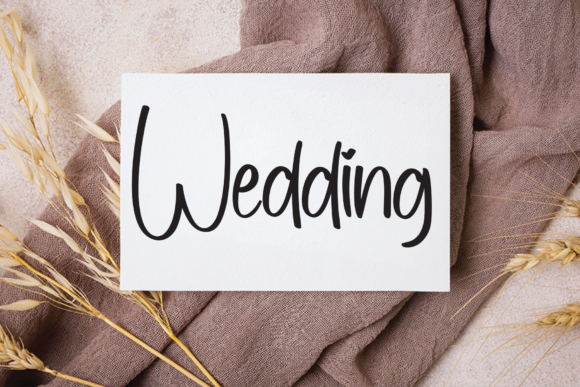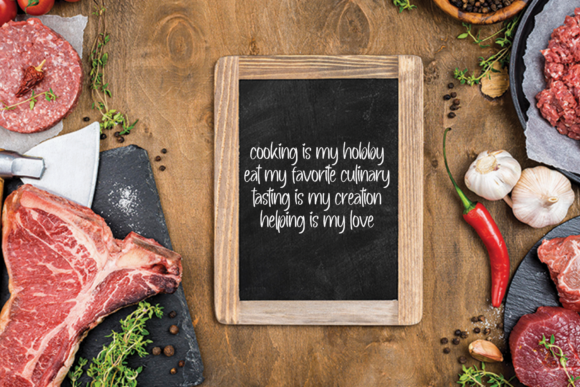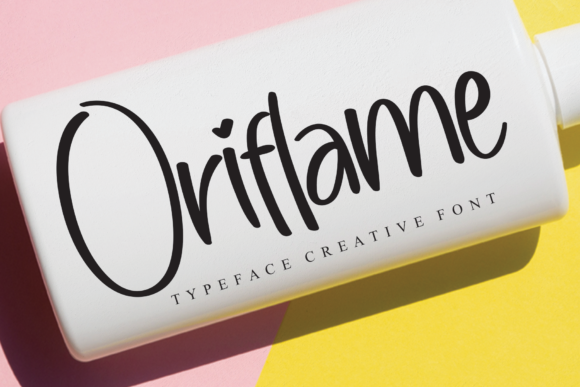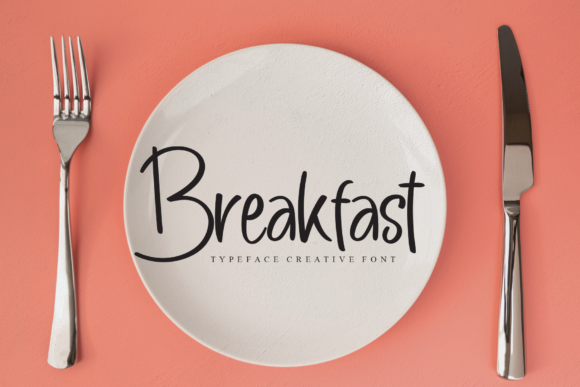
Monthly Font
Monthly is a sweet and cursive handwritten font. This gentle font will look gorgeous on a variety of design ideas. It will add a joyful and romantic touch to each of your projects!